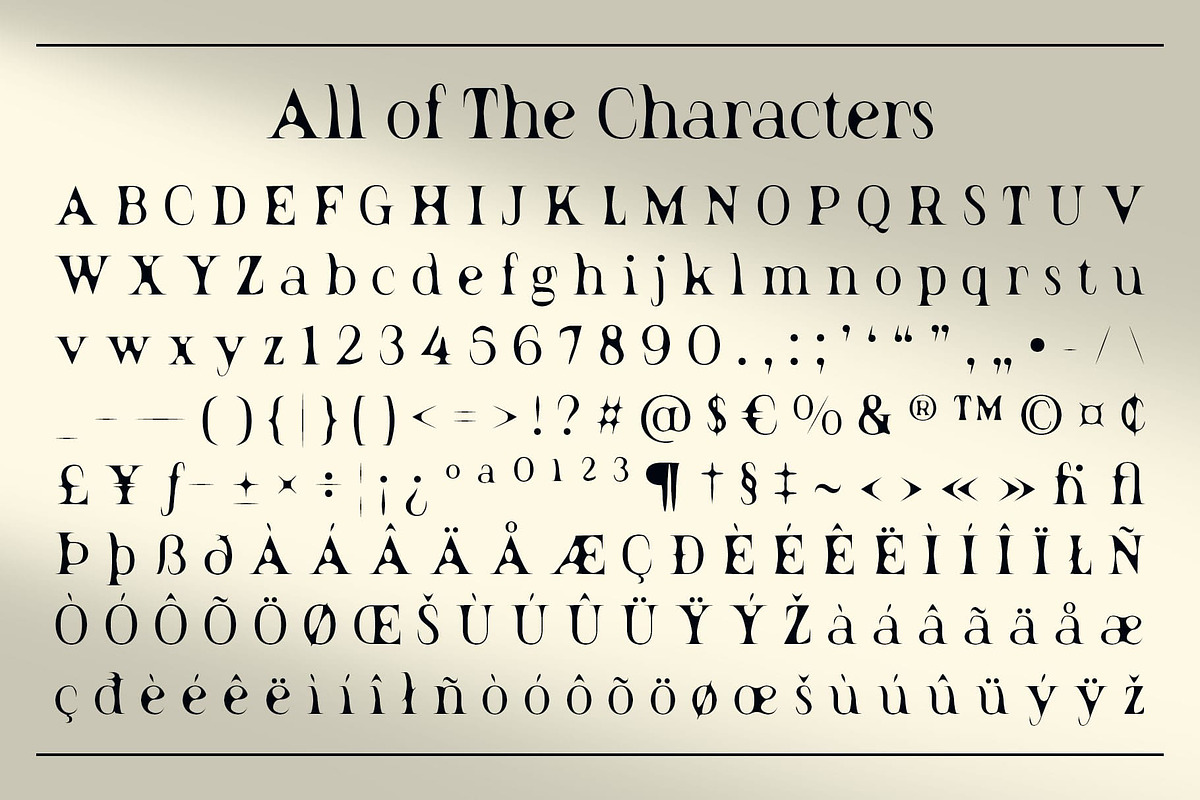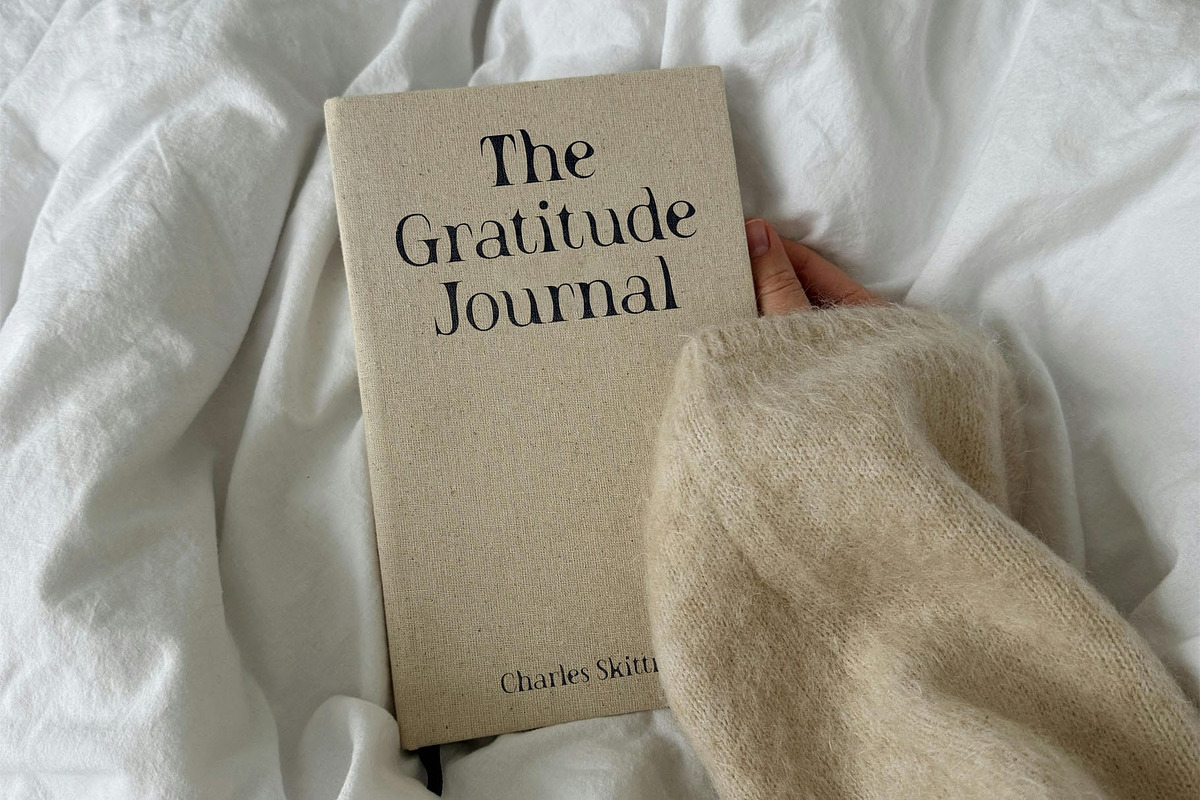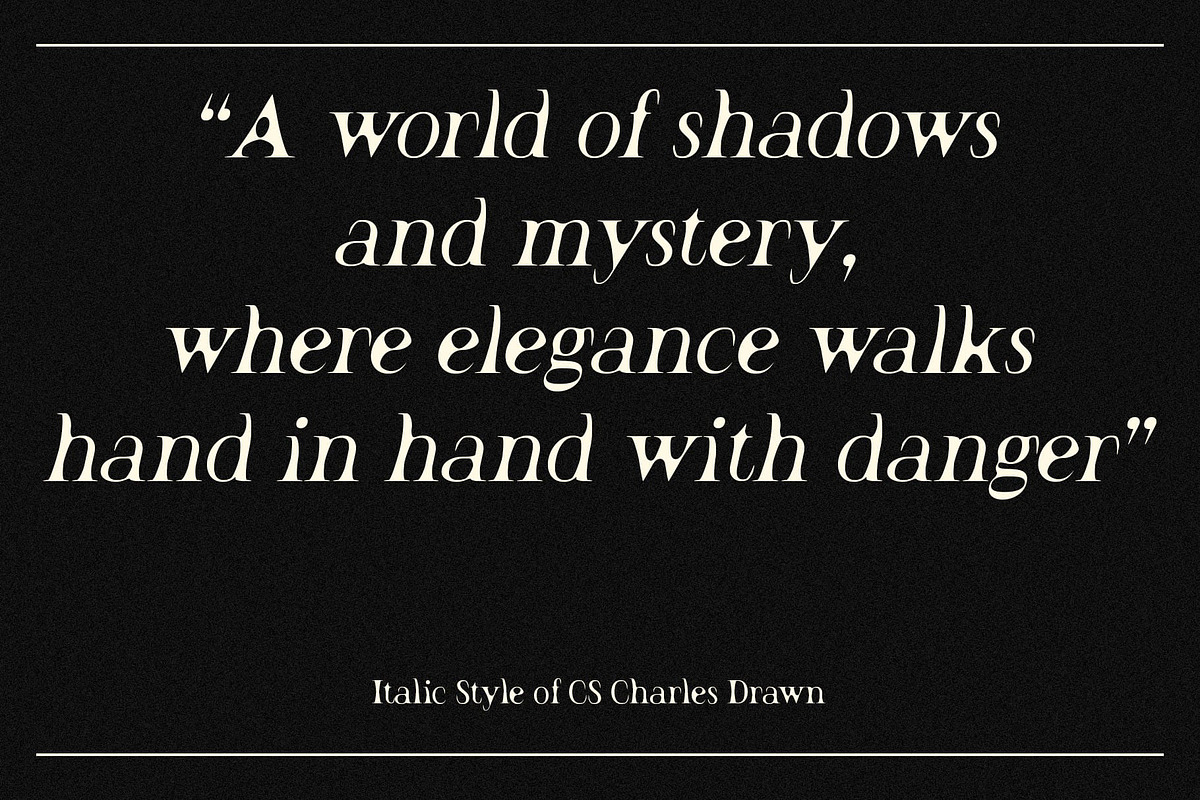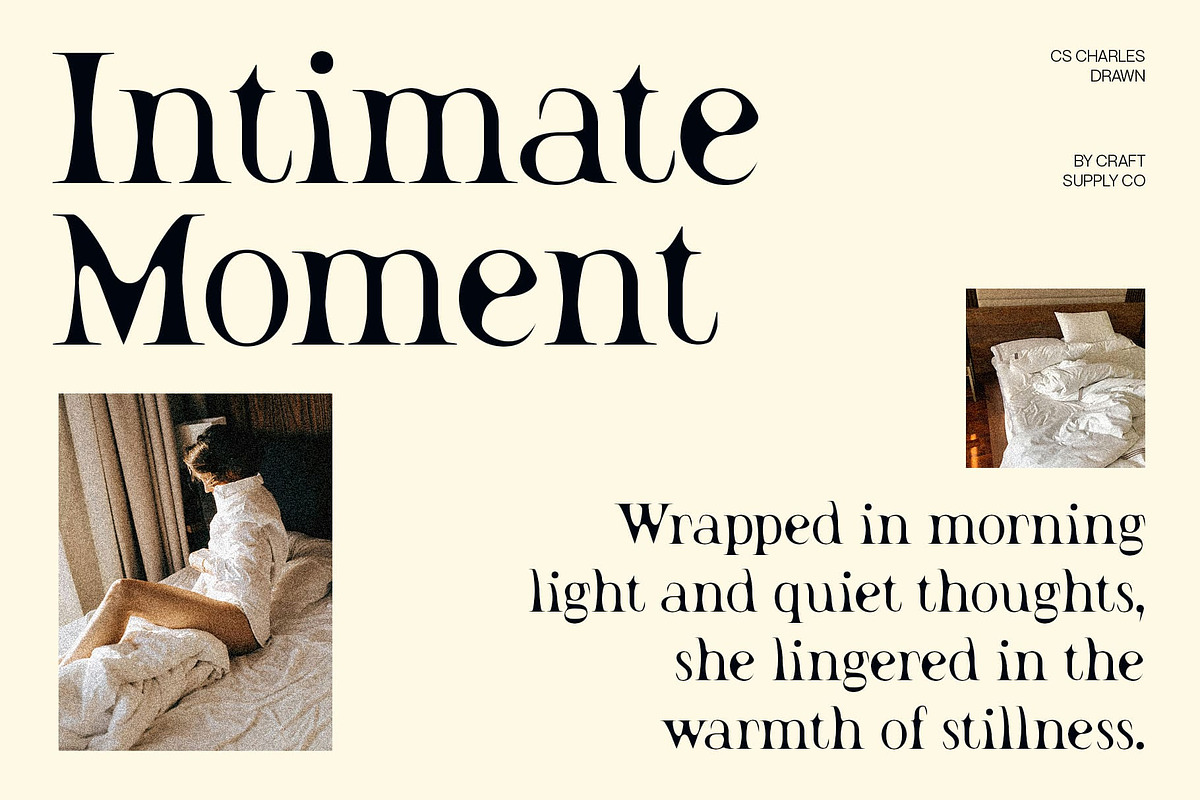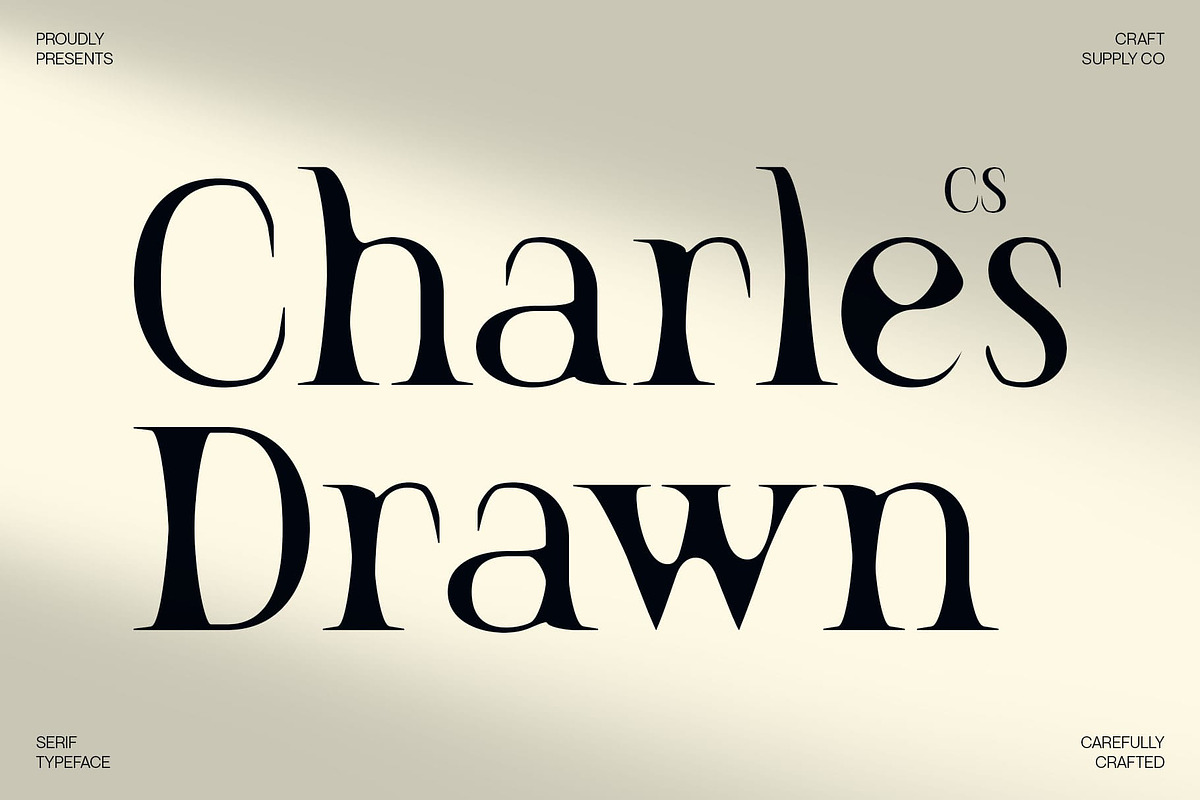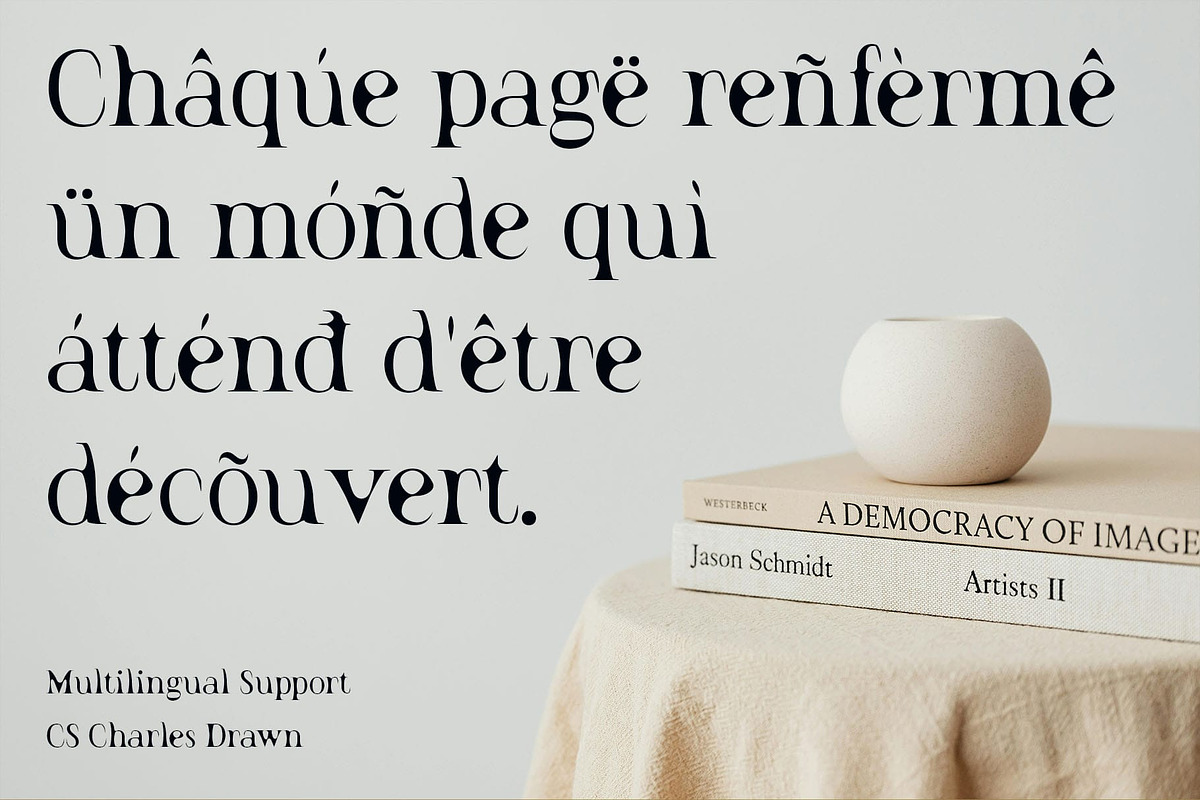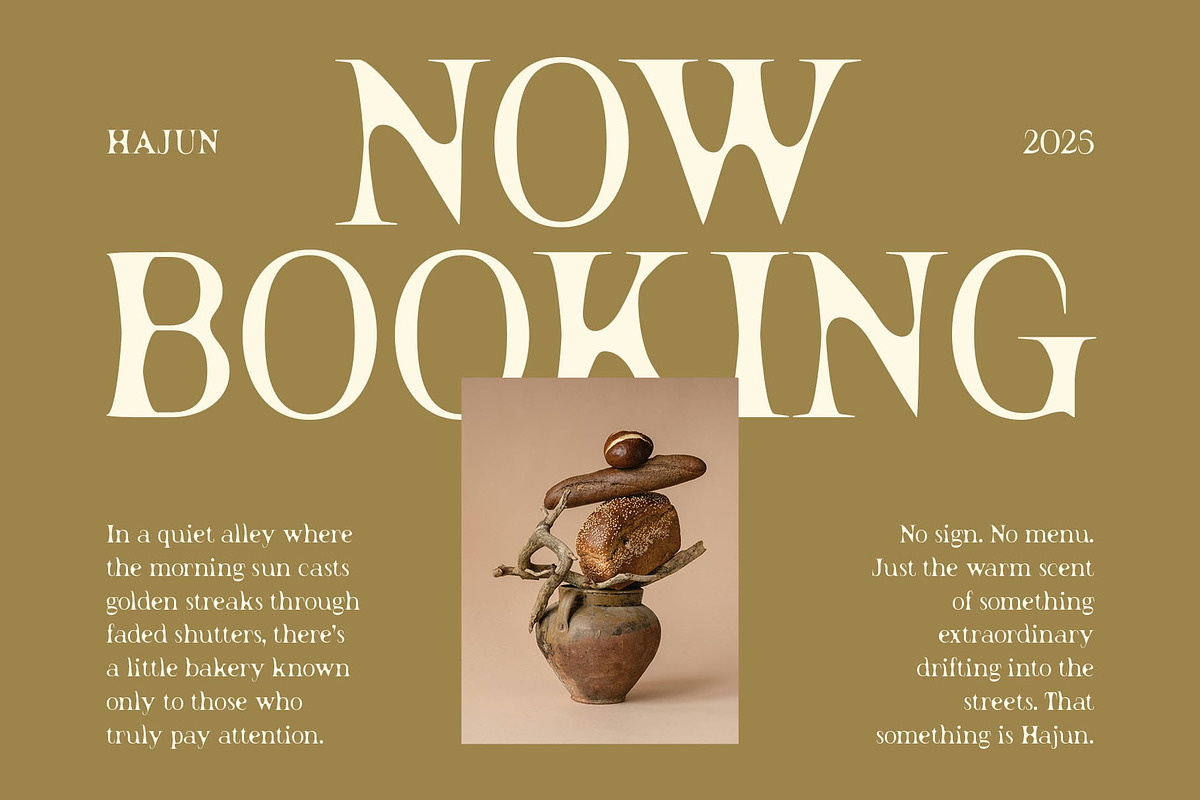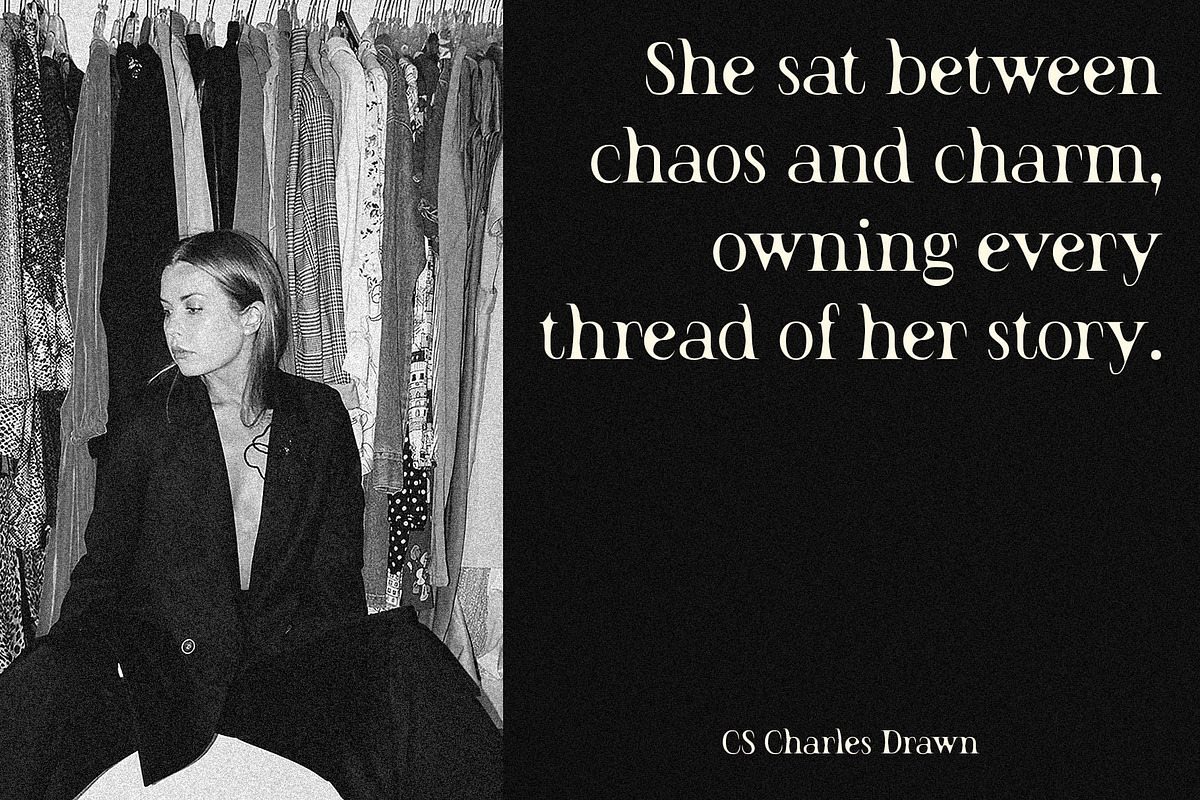
CS Charles Drawn
CS Charles Drawn – Elegance Refined with a Handcrafted Touch
Modern Serif with Drawn Texture This is a modern serif font that blends sleek precision with organic artistry. Its slim and clean form, paired with gently refined serifs, offers a look that is both elegant and contemporary. The subtle drawn effect adds a handmade texture, introducing soft imperfections that bring warmth, depth, and uniqueness to each character.
Aesthetic and Minimalist Serif Design Built for modern aesthetics, this stylish font embraces minimalism and balance. The slender proportions and clean strokes give it a graceful, understated sophistication, making it ideal for visual storytelling that requires both clarity and charm.
Organic Texture for Creative Expression The added hand-drawn texture infuses the font with a human touch—slightly raw and tactile—providing visual interest and personality without overwhelming the design. This makes it especially fitting for creative projects that want to blend refinement with individuality.
Versatile for Elegant and Personal Design This refined and aesthetic font is perfect for editorials, beauty branding, product packaging, and artistic layouts that require a balance of elegance and expression. Whether you’re working on a modern magazine spread or crafting an upscale, personal brand, this font delivers a look that is graceful, stylish, and creatively distinct.